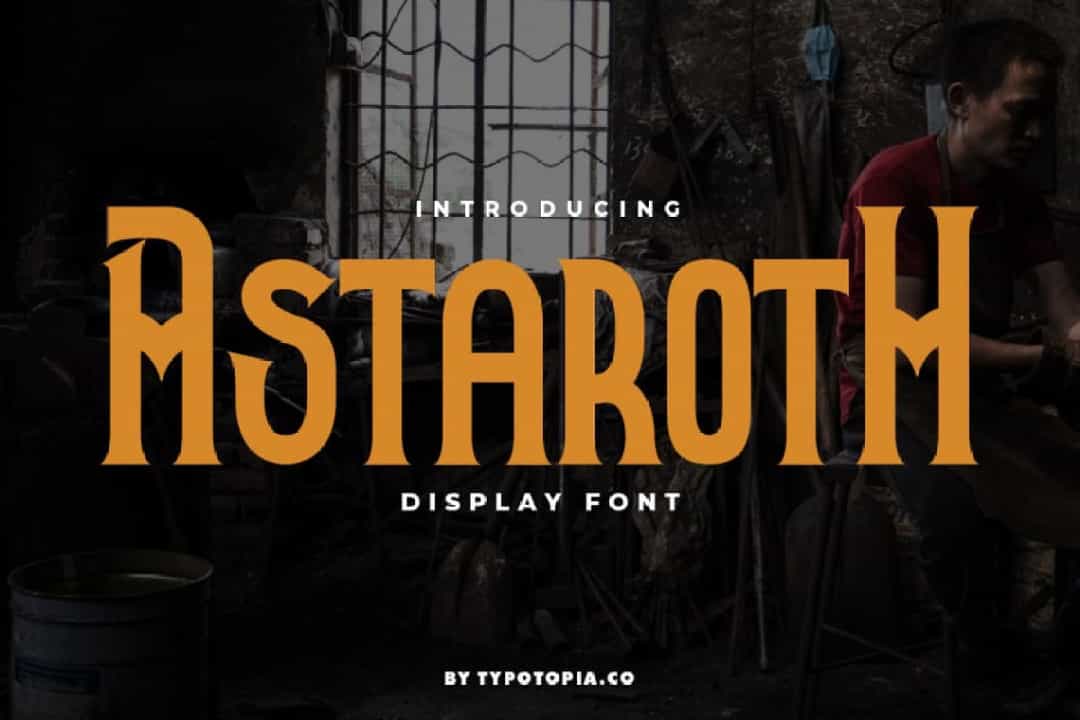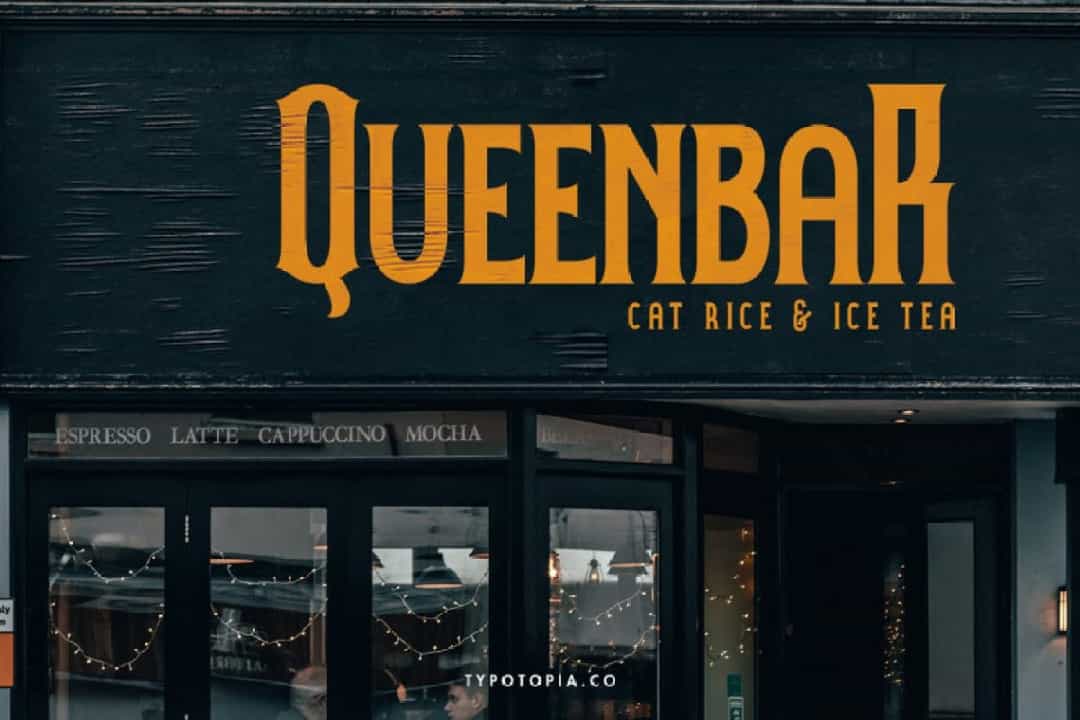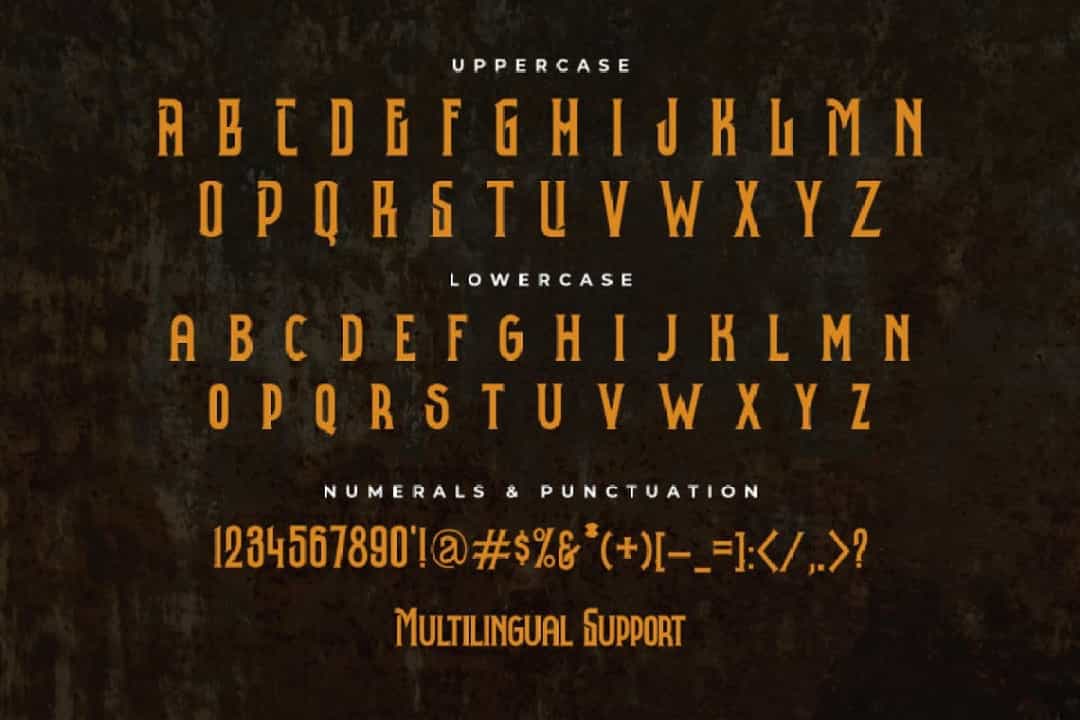
Astaroth is an amazingly exceptional and alluring Display Font. Suitable for logo printed invitations, quotes cards, products packaging headers and also for posters, letterhead designs apparel labels, etc. Astaroth is versatile and will make a strong impression in any project you want it for, whether it is print invitations, quotes cards, products packaging headers and headers.